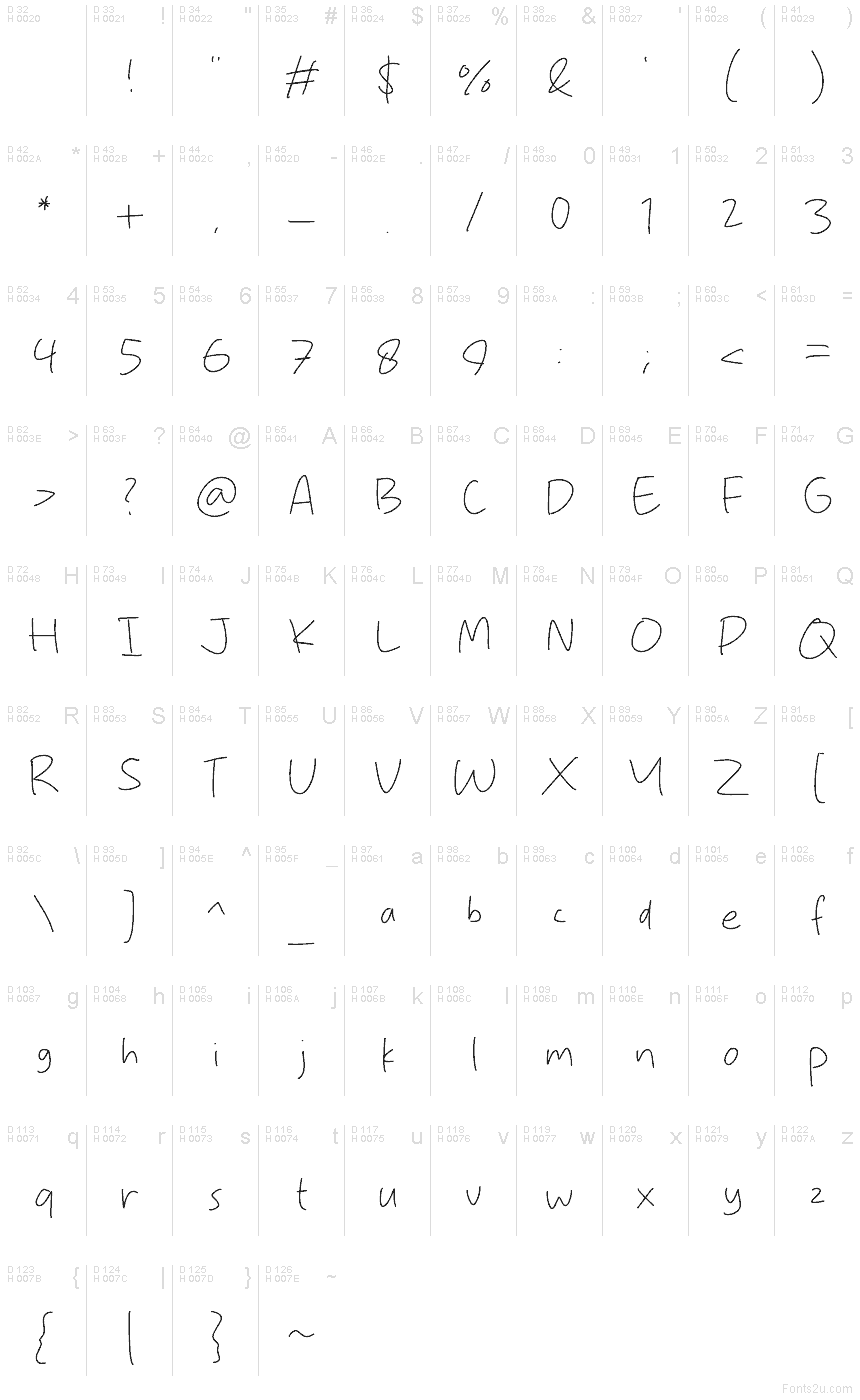
Lazy Script
Lazy Script font straight from MJType is a written by hand free font with the most natural style. The irregular lettering comes with proper sizing yet no weight or shape consistency between the letters. The skeleton being out of control makes this light font more interesting and vibrant in both lowercase and uppercase characters.
Cover titles for comic books, informal magazines, inter-school events, and e-learning platforms or other educational fields. Extend its usage to casual blogs, personal branding projects as well as social media typing for everyday communication and engagement with your audience.